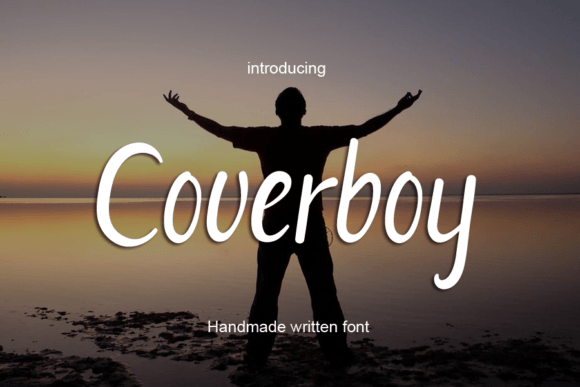
Journey into the realm of elegance and refinement with Coverboy Font, a script font borne from the artistry of AA Studio. This meticulously handcrafted font exudes a captivating charm that will elevate your digital creations to new heights.
Immerse yourself in the beauty of Coverboy's flowing curves and graceful lines, each stroke infused with a touch of timeless elegance. Its organic, handwritten style evokes a sense of authenticity and warmth, adding a personal touch to your designs. Whether you're crafting logos, branding materials, or heartfelt messages, Coverboy Font is the perfect companion for conveying a message of sophistication and style.
Unleash your creativity and explore the endless possibilities that await with Coverboy Font. Its versatility shines through in its ability to adapt seamlessly to a wide range of design projects. From eye-catching headlines that demand attention to elegant invitations that exude charm, Coverboy Font effortlessly elevates your words, transforming them into works of art.
Take your iPhone signature to the next level with Coverboy Font, the ultimate choice for those seeking a touch of distinction. Its perfectly crafted characters add a unique flair to your digital communications, ensuring that your messages stand out from the crowd. Experience the joy of effortless expression as you effortlessly pen messages that reflect your personal style and leave a lasting impression.